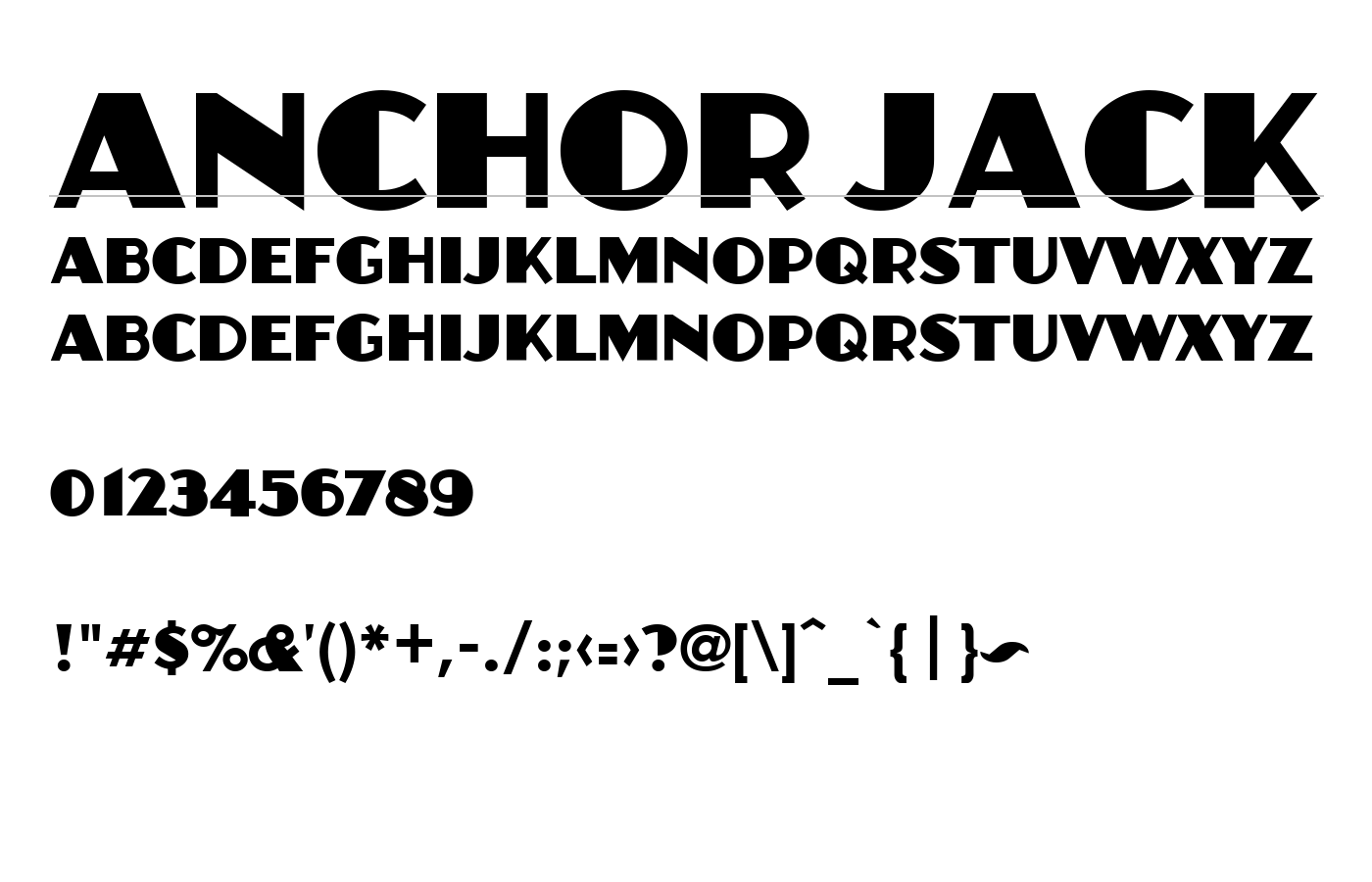
Anchor Jack is a bold, geometric sans serif font with a strong, industrial feel. Its heavy weight and sharp, angular letterforms create a commanding presence, making it ideal for impactful headlines, logos, and branding that demand attention. This font’s modern yet somewhat vintage style suits designs needing a mix of strength and character, such as packaging, posters, and fashion labels.
Anchor Jack Font